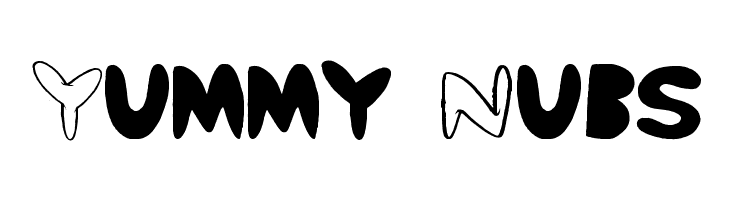
A playful, bold font with rounded, bubbly characters.
A playful, hand-drawn font with a bold, cartoonish style.
A bold, slanted font with outlined characters and a dynamic style.
A bold, fuzzy, and dynamic font with a playful, hand-drawn style.
A playful, hand-drawn font with bold, rounded outlines.